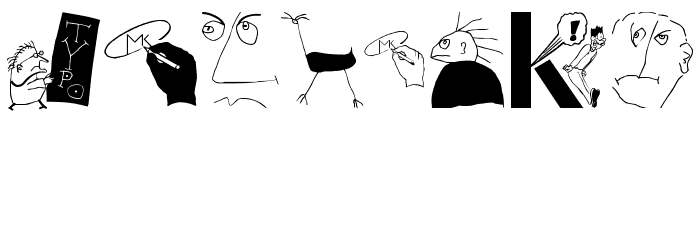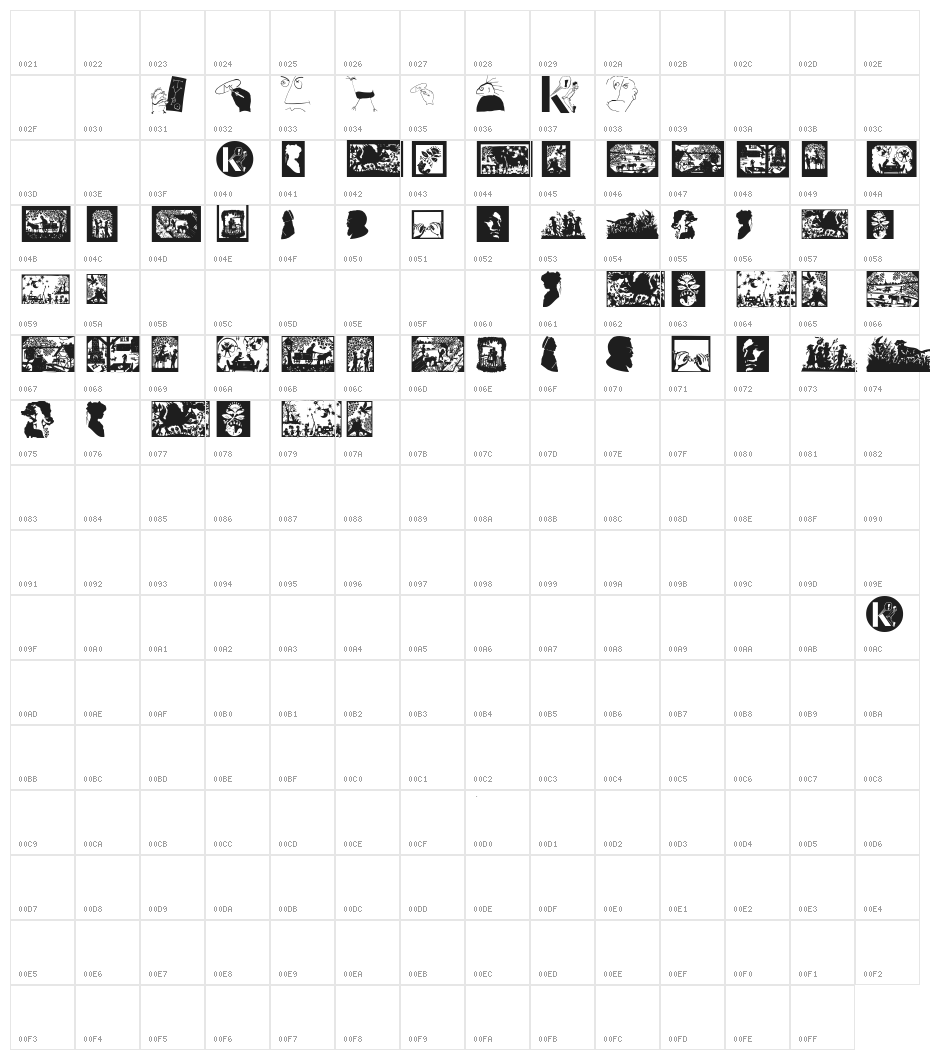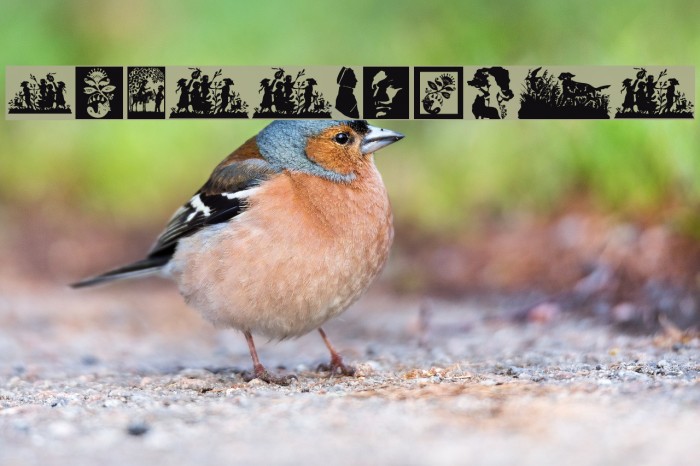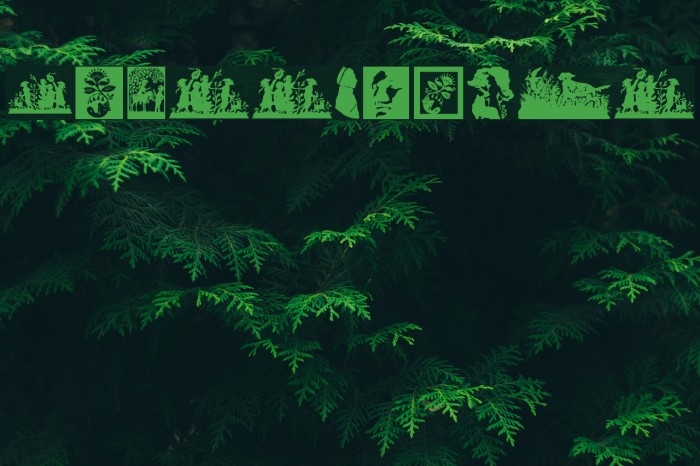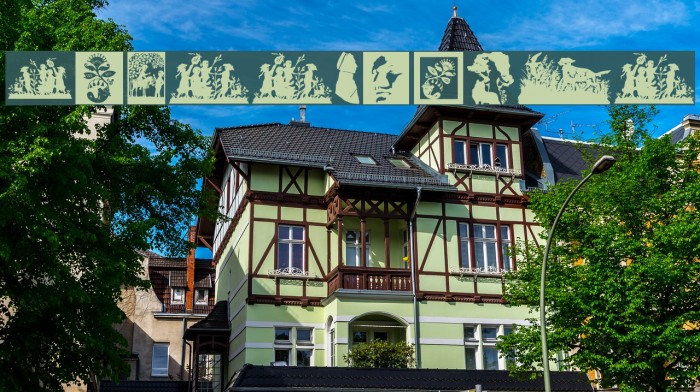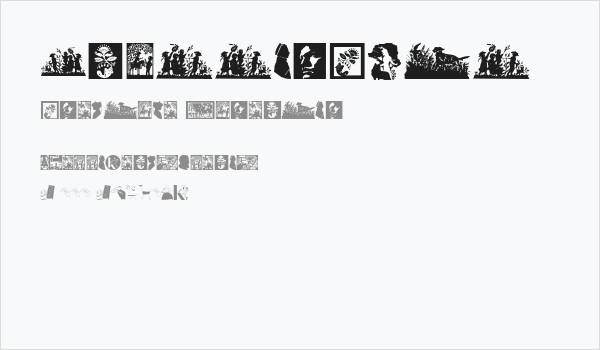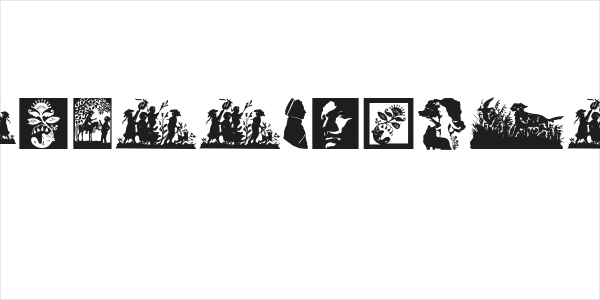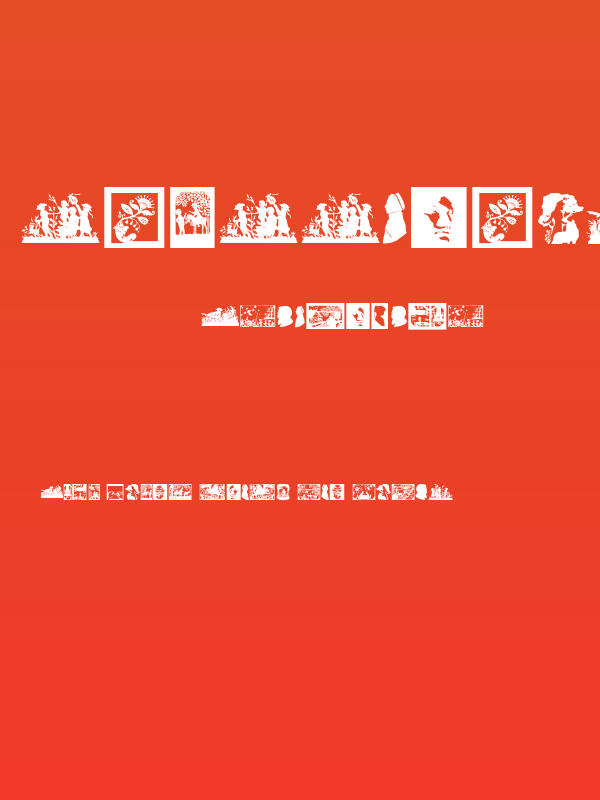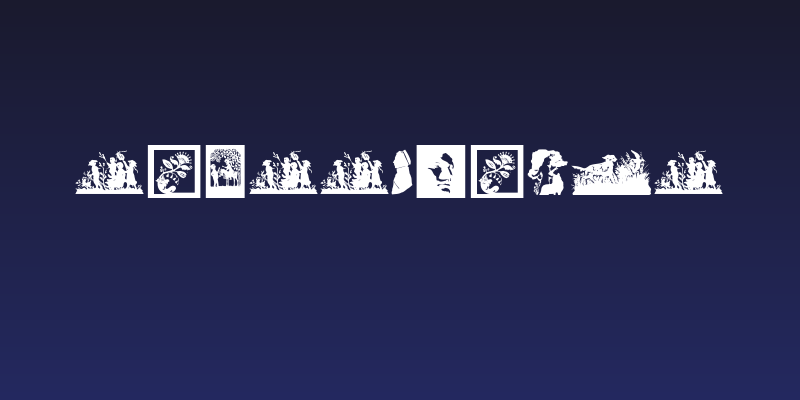
ScissorCuts Font
ScissorCuts Description
This font is a highly decorative and artistic collection of characters, each uniquely designed with intricate silhouettes and illustrations. The characters are composed of detailed scenes and figures, resembling paper cutouts or shadow puppets. Each letter and symbol is a miniature artwork, making it more of an artistic expression than a traditional typeface. The style is reminiscent of vintage storytelling or folk art, with a whimsical and creative flair. This font is not suitable for body text due to its complexity and decorative nature, but it serves as a striking visual element for specific design projects.
| Use Case | Logos, Posters, Artistic projects |
| Proposed Projects | Ideal for artistic projects, posters, book covers, or any design requiring a unique and illustrative typeface. |